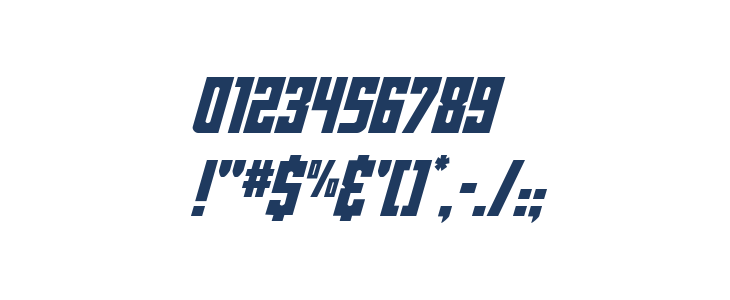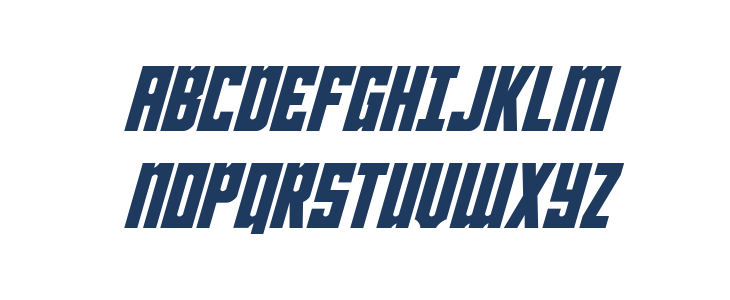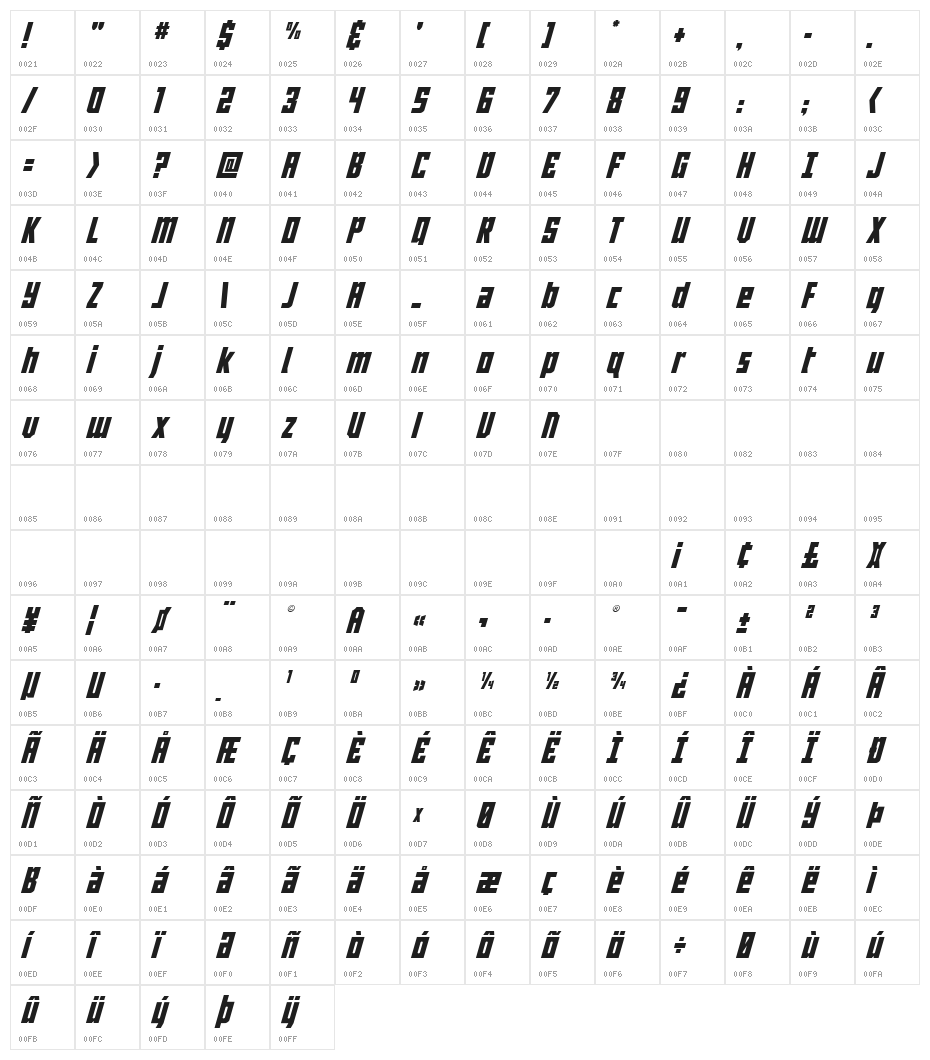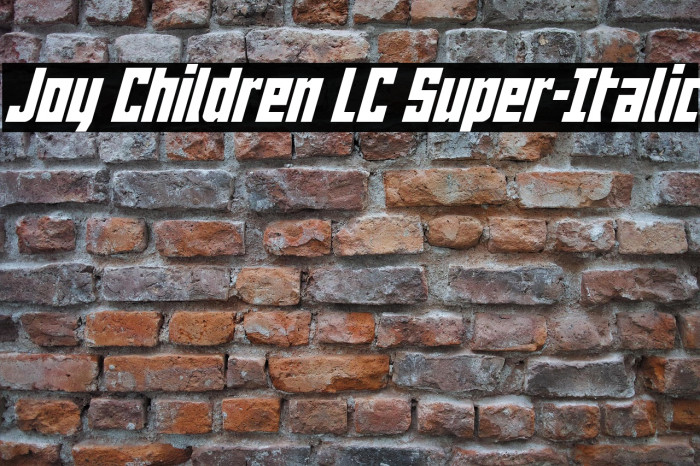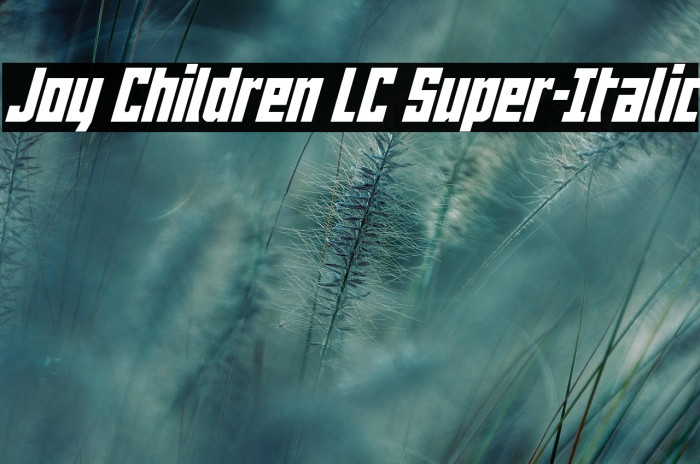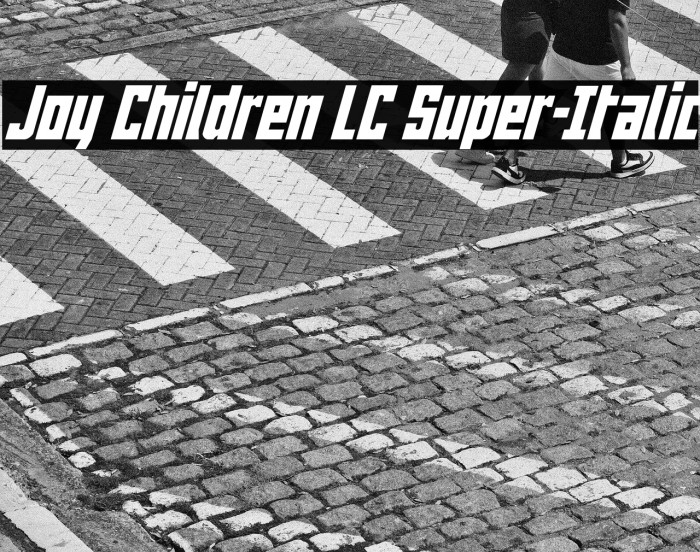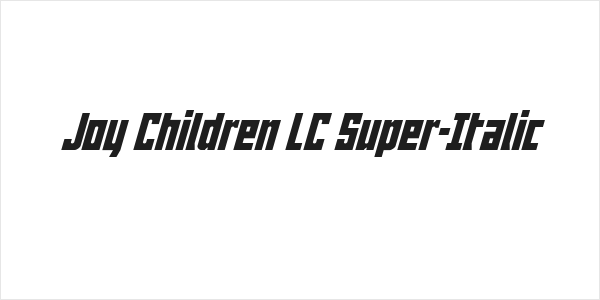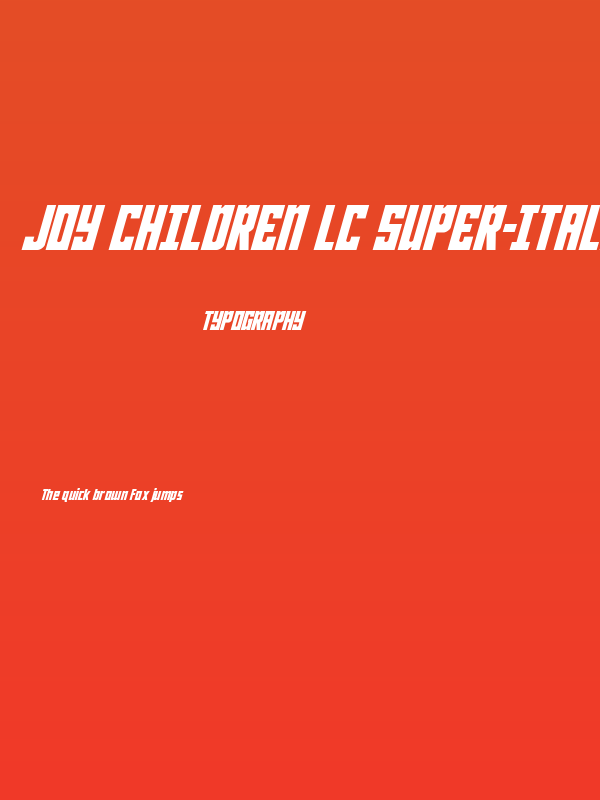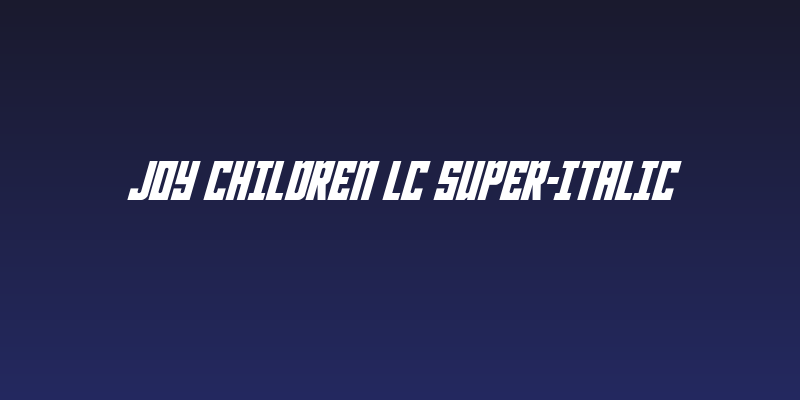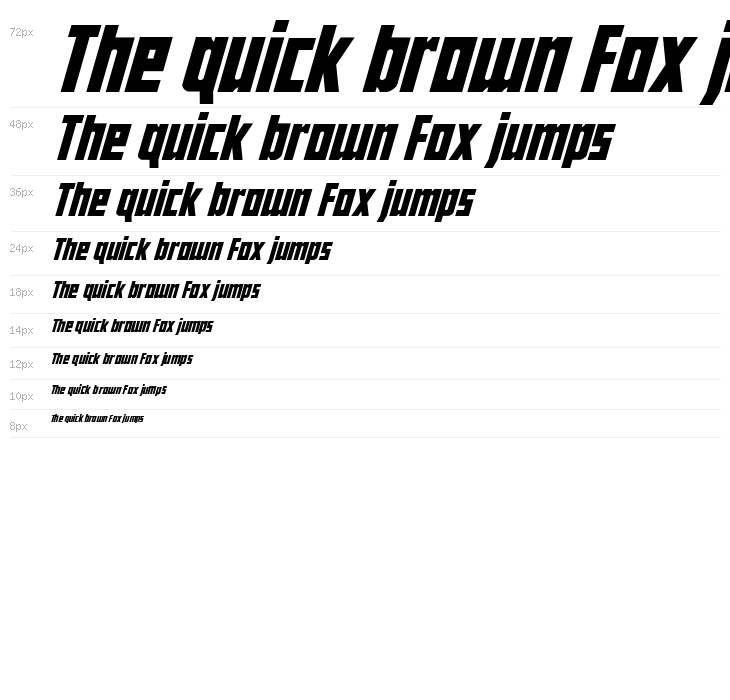
Joy Children LC Super-Italic Font
Joy Children LC Super-Italic Description
Bold, italic, geometric sans-serif font with a strong, dynamic appearance.
| Overall Style | Modern, Geometric, Dynamic |